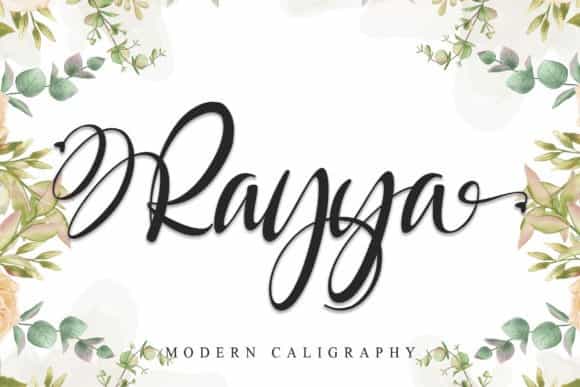
Discover Rayya Modern Calligraphy Font, part of the Calligraphy collection—a versatile and unique font perfect for adding a personal touch to your projects. Download it for free and enjoy crafting designs with style, from invitations to social media posts. This font is available exclusively for personal use, giving you the freedom to create without limits. Unlock your creativity with Rayya Modern Calligraphy Font today!
Rayya is a modern calligraphy font that was design to be wine with the touch of elegance. It includes fantastic swashes and ligatures that make the script very versatile. No matter if you are in search of fonts for Instagram or calligraphy scripts for DIY projects, Saylina will transform any creative idea into a real masterpiece!